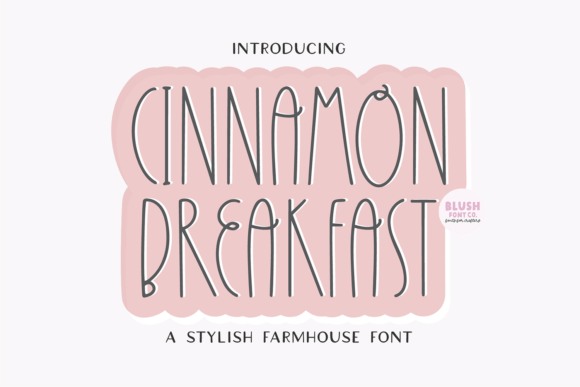
In a world where creativity reigns supreme, Cinnamon Breakfast Farmhouse Font stands as a beacon of inspiration and expression. With its tall and skinny stature, this decorative font transcends the ordinary, gracing your projects with a distinctive charm that captivates all who lay their eyes upon it.
Immerse yourself in the rustic farmhouse allure that Cinnamon Breakfast embodies, evoking images of cozy cottages and sun-kissed fields. Each letter dances across the page like a handwritten note from a bygone era, whispering tales of love, laughter, and heartfelt moments.
Unlock the boundless creative possibilities that await with Cinnamon Breakfast. Whether you're crafting heartfelt DIY signs, personalizing cherished stationery, or adding a touch of whimsy to your digital designs, this versatile font empowers you to make a statement that resonates.
Unleash your imagination and embark on a creative journey like never before. Cinnamon Breakfast is your steadfast companion, guiding you through the realms of creativity, where ordinary words transform into captivating expressions of your unique style.